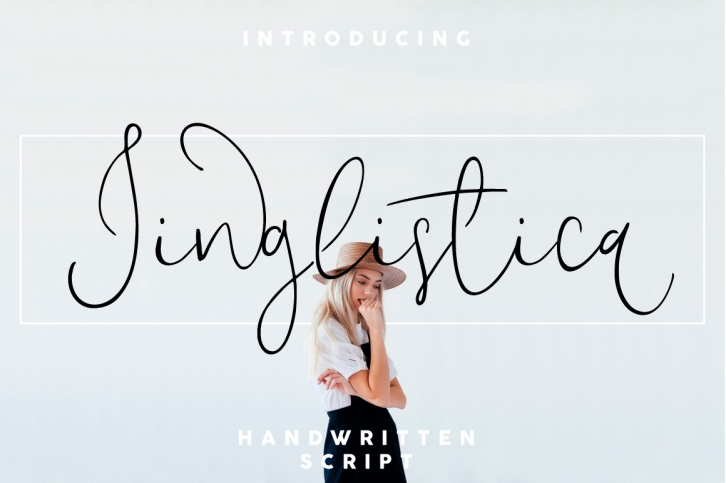
Jinglistica is a gorgeous font that was realeased on October 31, 2017. The font can be used in many style contexts and design environments. Perfect for invitations, magazines, websites, logos, and more! It was designed by Mellow Design Lab and the file size is 5.62 MB. Thanks for checking out this font!